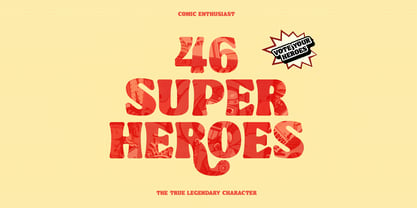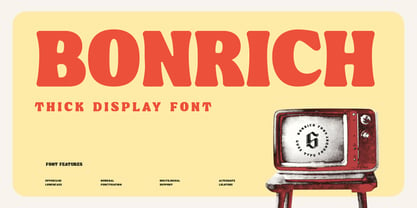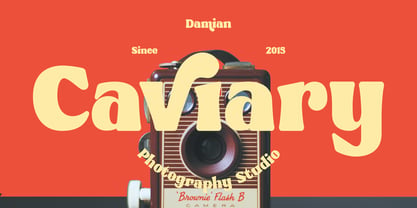
Bonrich Font
Bonrich FontBonrich is a display font that is characterized by thick lines with rounded edges which makes Bonrich look playful. This font suitable for any design style such as retro, vintage, pop culture and many more. Bonrich has features such as uppercase, lowercase, numbers, punctuation, and multilingual support. Bonrich also has alternate and ligature features to make your writing more stylish and unique for various designs such as posters, headlines, magazines, logotypes, book covers and many more.